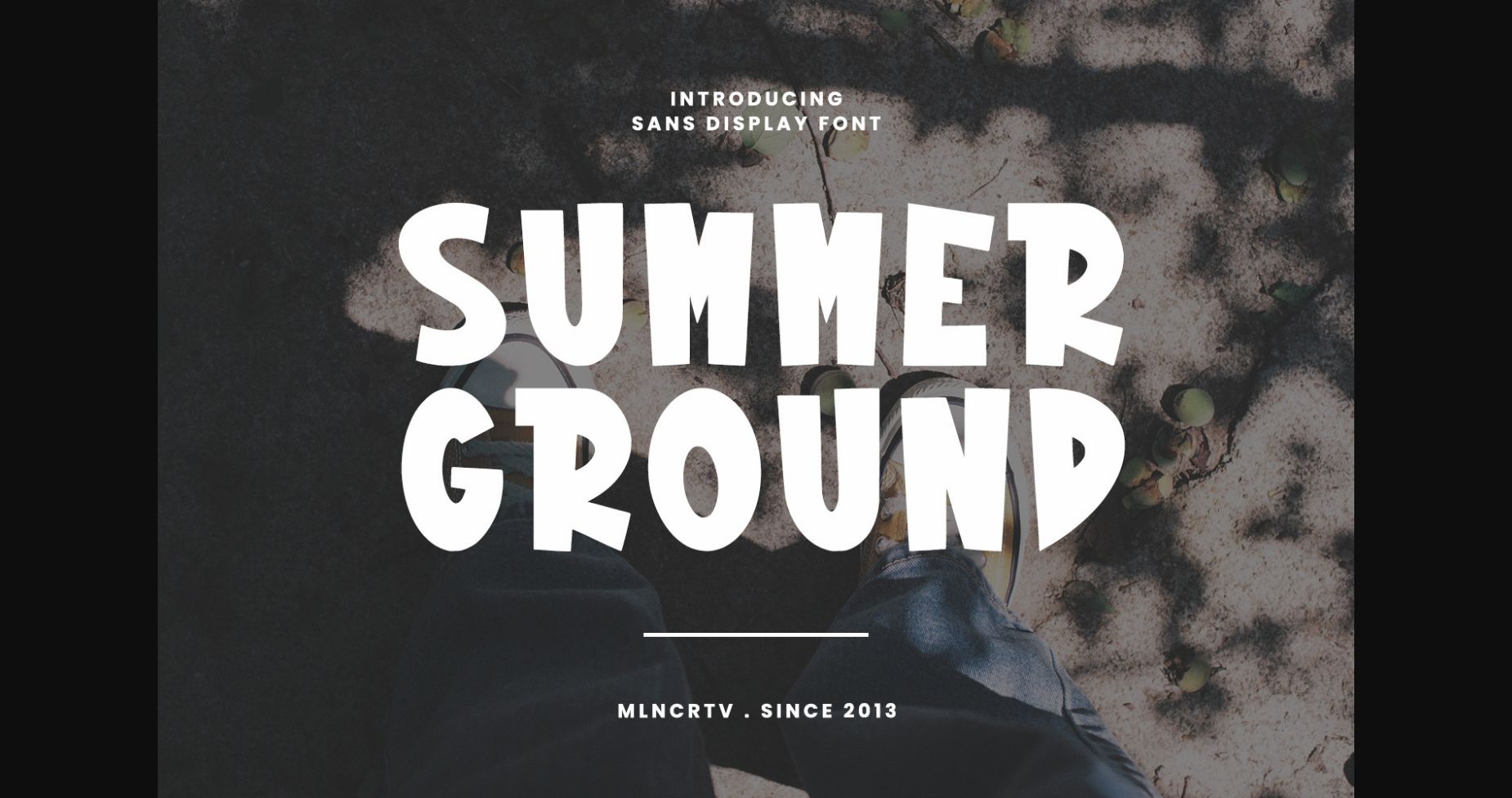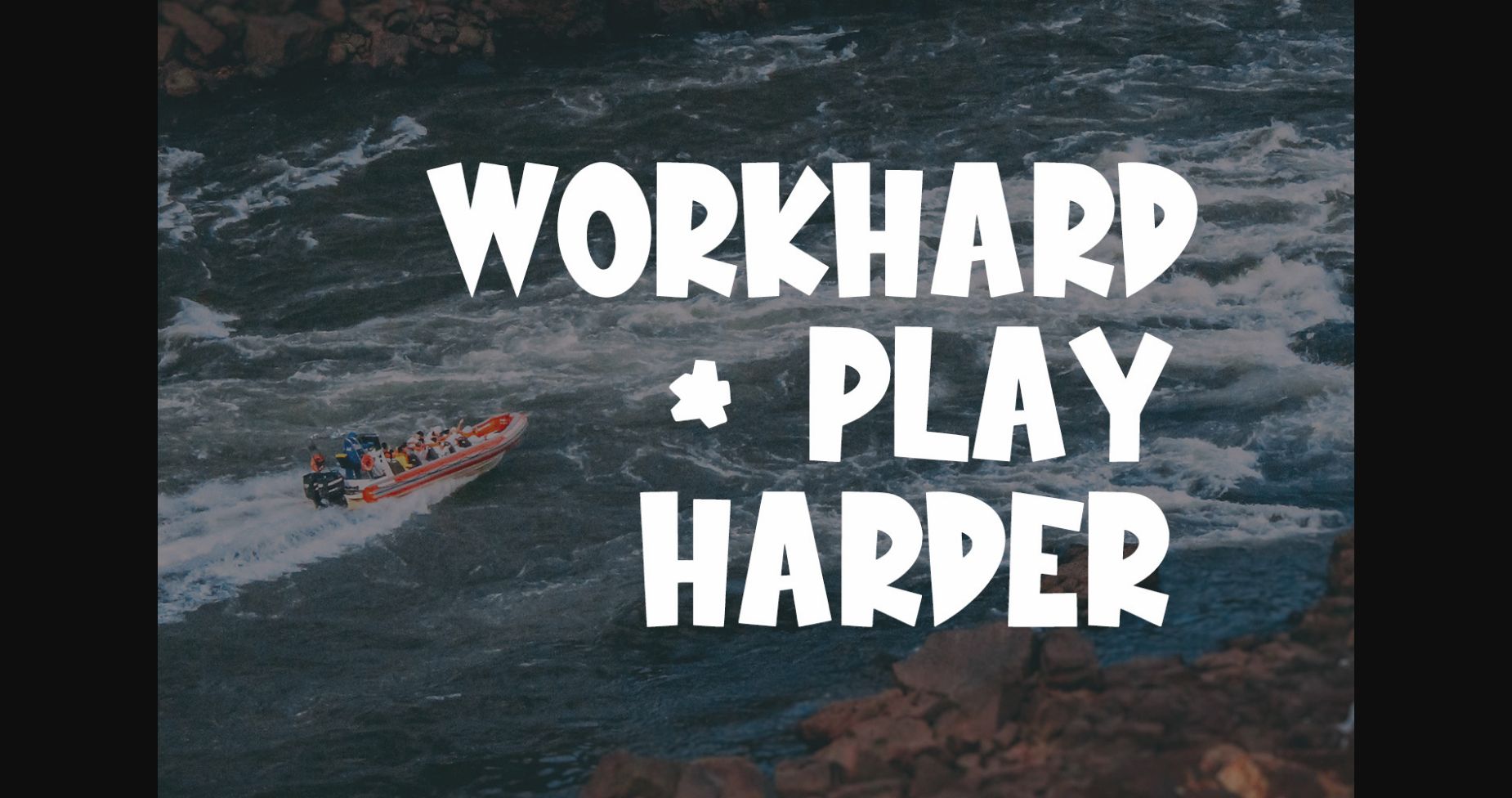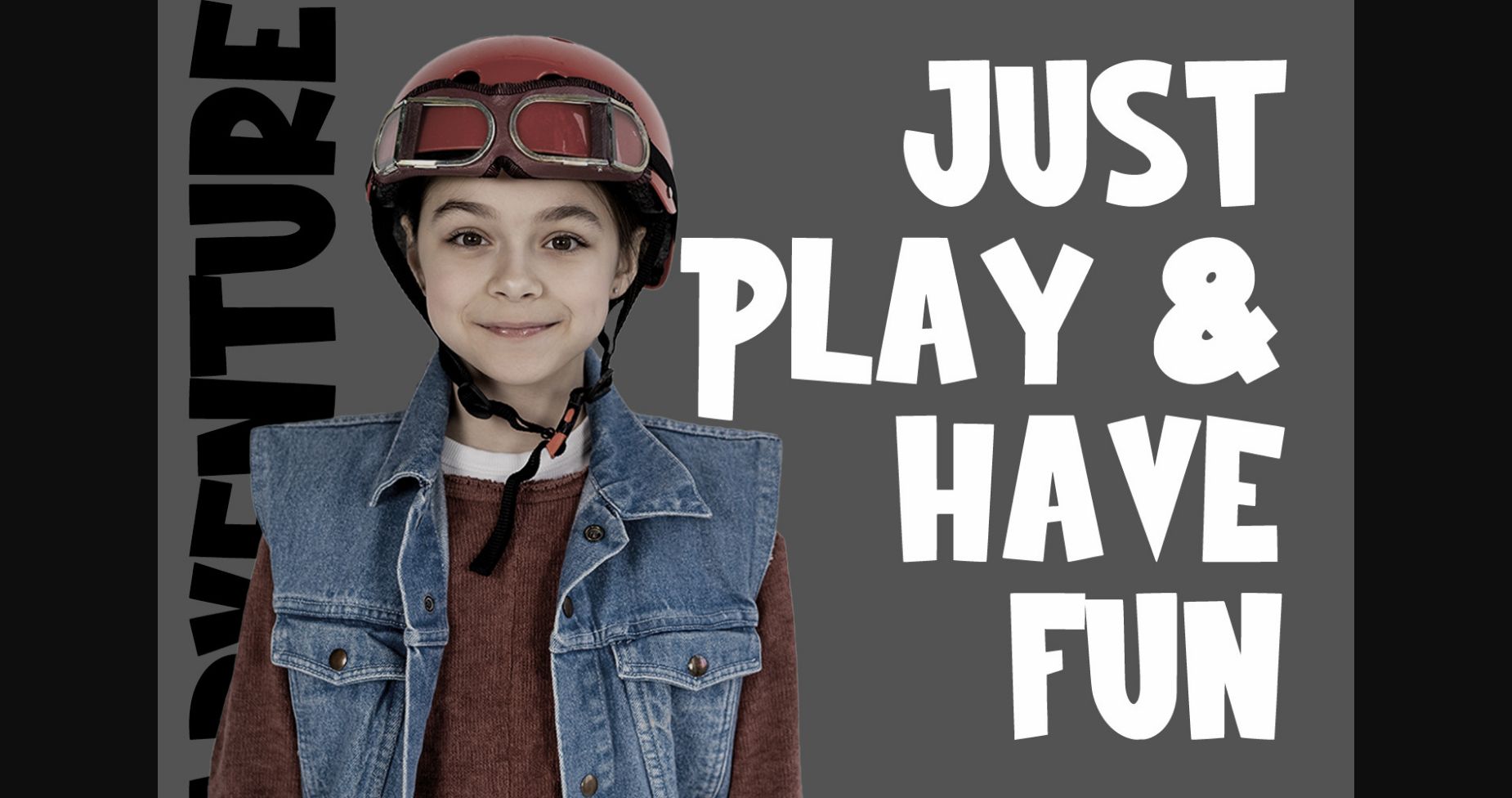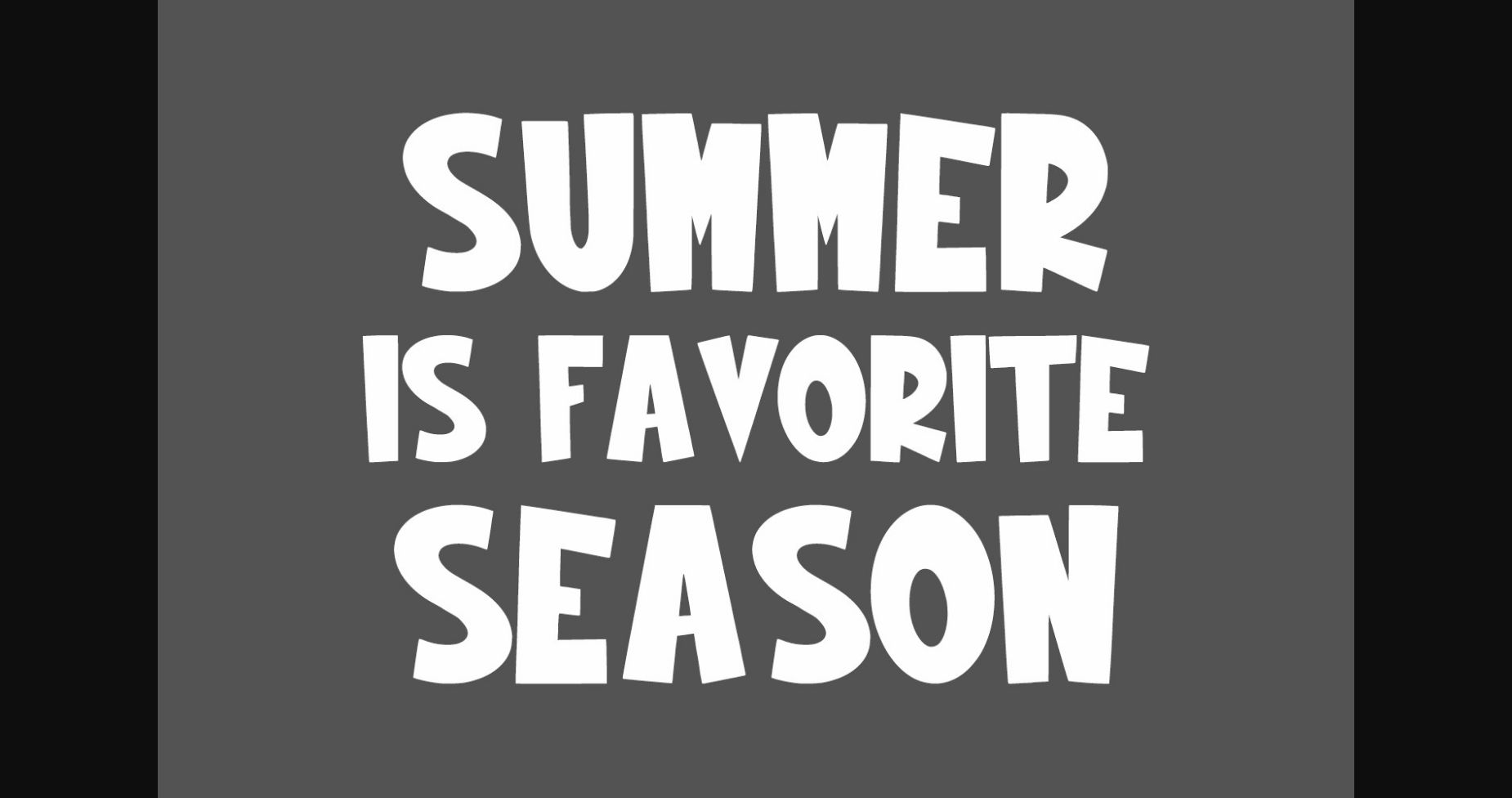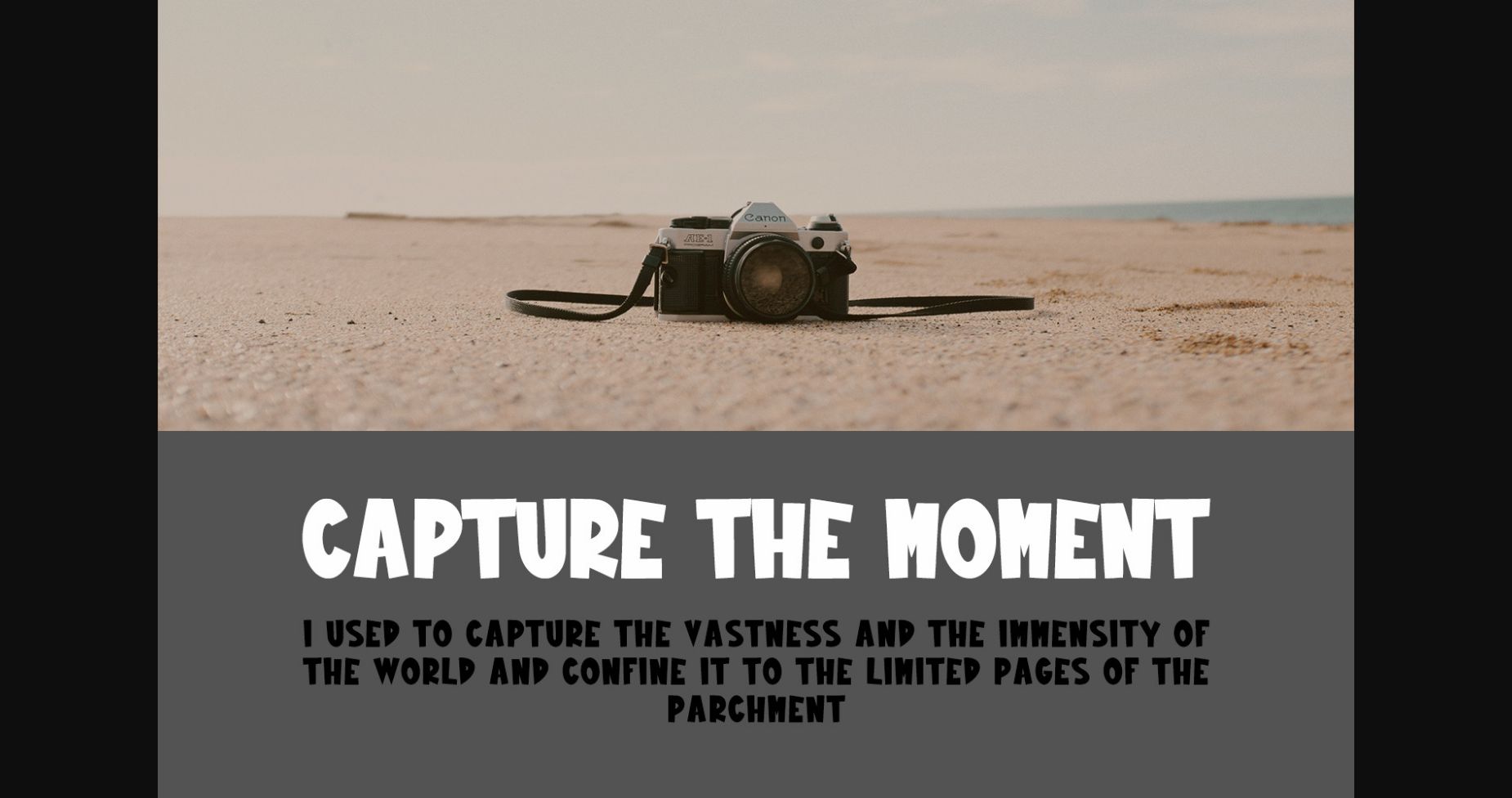
About Summer Ground Font
Summer Ground is a modern sans display font. It is ideal for logo design, social media, movie and book titles, web design, posters, cards, invitations and so much more!